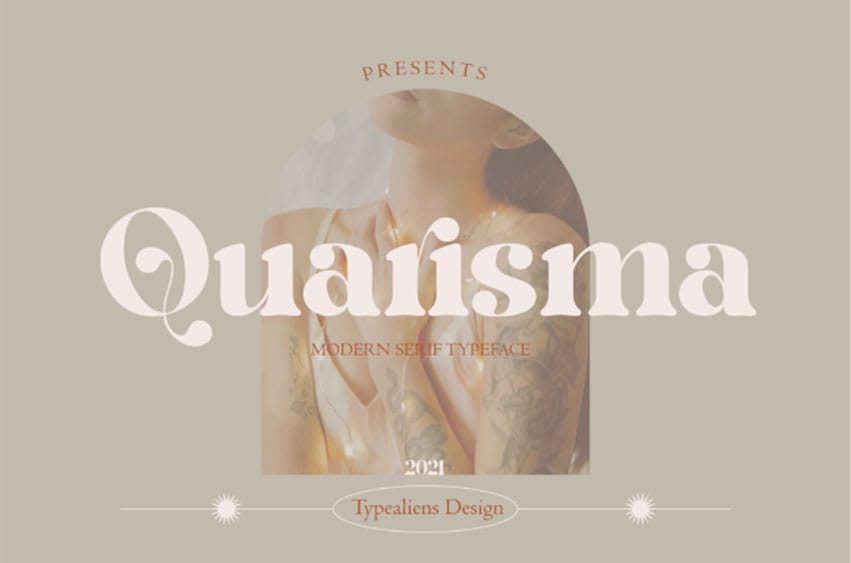
Quarisma Font is a modern and bold serif font.
It is very suitable for titles, as it has the potential to elevate the look of your projects and make the words stand above the background.